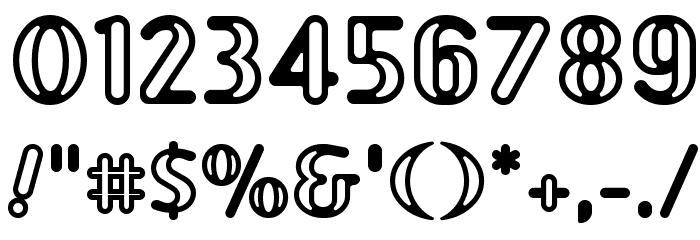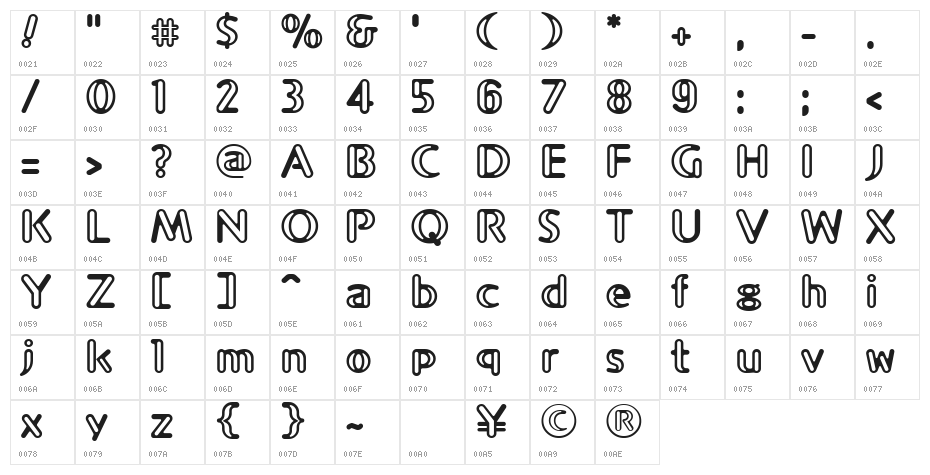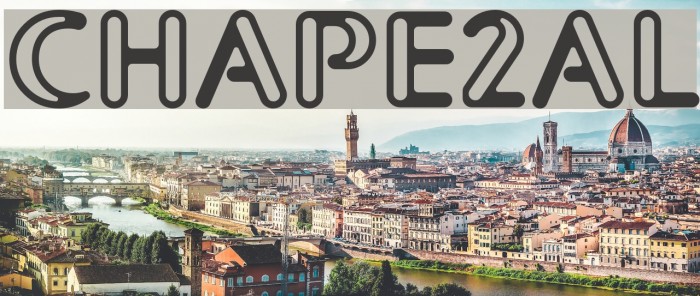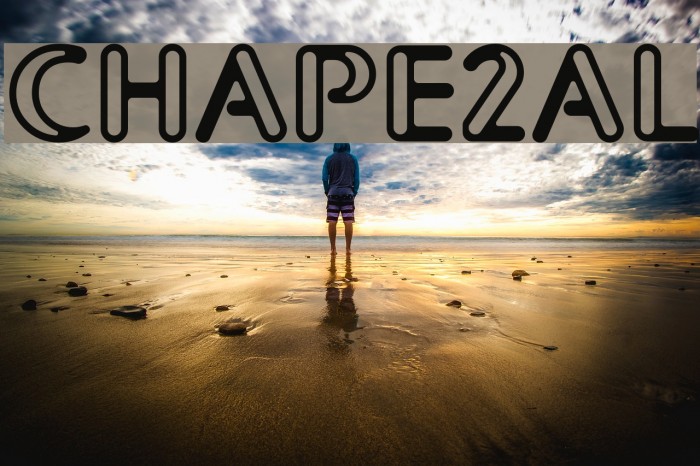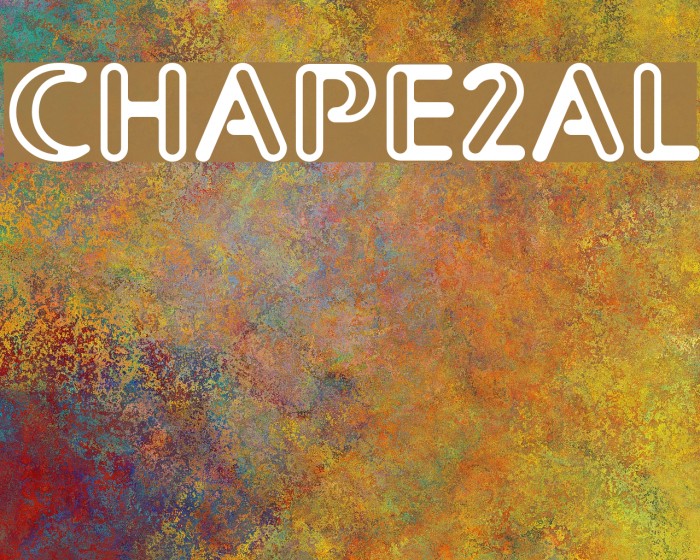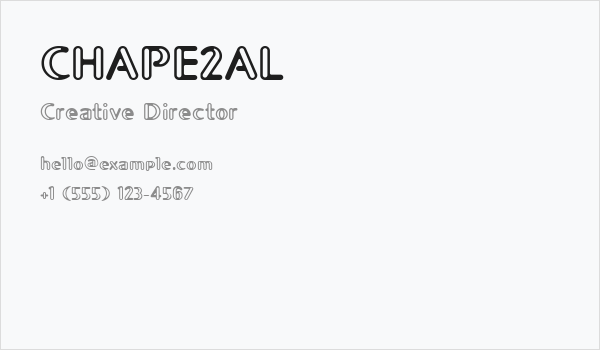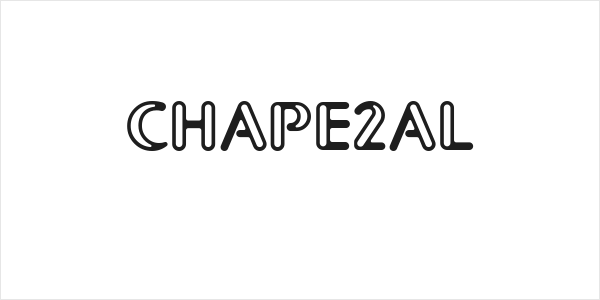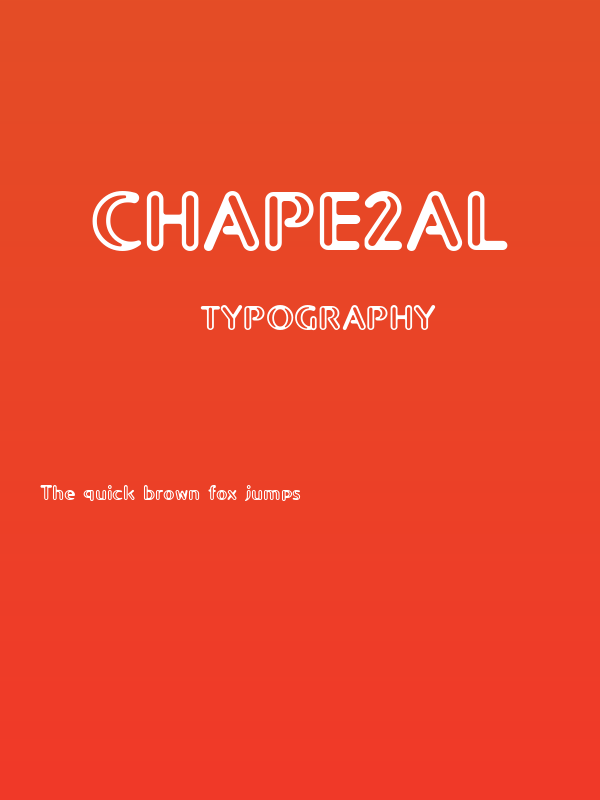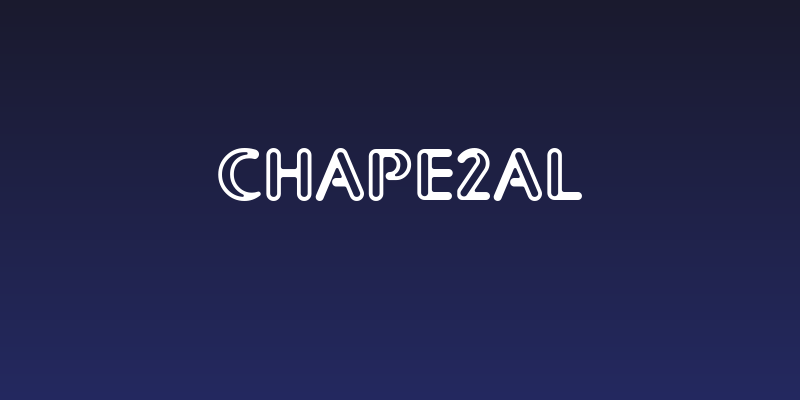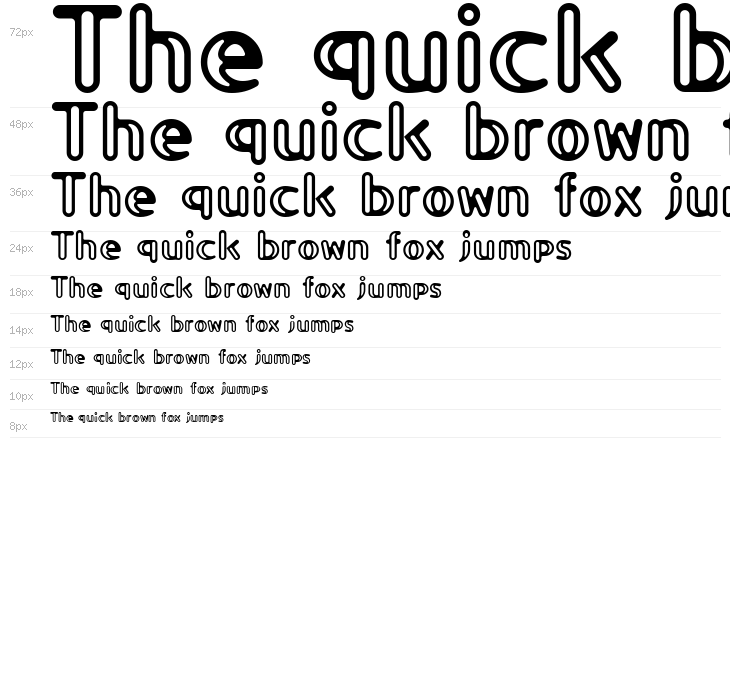
CHAPE2AL Font
CHAPE2AL Description
This font features a bold and playful design with a modern twist. The characters are outlined, creating a hollow effect that adds depth and dimension. The uppercase and lowercase letters maintain a consistent style, with rounded edges and a smooth flow. The numbers and special characters follow the same design principles, ensuring uniformity across all elements. The font's unique style makes it stand out, offering a fresh and contemporary look that is both eye-catching and versatile.
| Proposed Projects | Ideal for branding, posters, headlines, and creative projects that require a distinctive and modern touch. |